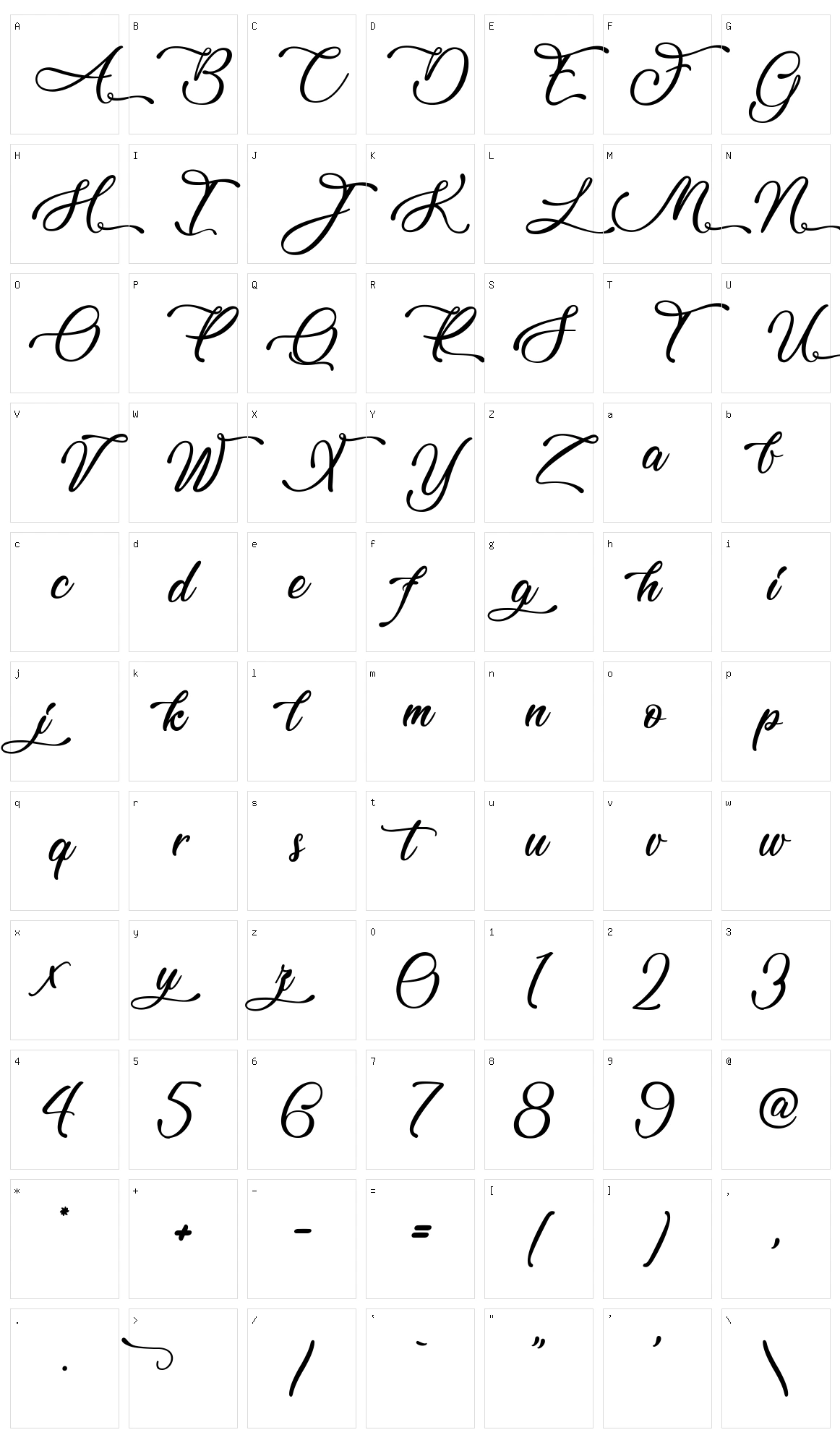
The free font Lovely Home is carefully designed by Typhoon Type? - Suthi Srisopha, showcasing a thoughtful balance of creativity and usability and falls under the Script font style. When you download the ZIP file, it contains only 445.1 KB of font files, making it lightweight and quick to download. Please review the license details below to understand permitted usage and distribution rights. If license information is not available, we recommend using this font for personal projects only or contacting the author directly for commercial usage permissions.
Type > after word to get the ending swash for any small letters.
Example : Lovely Home>